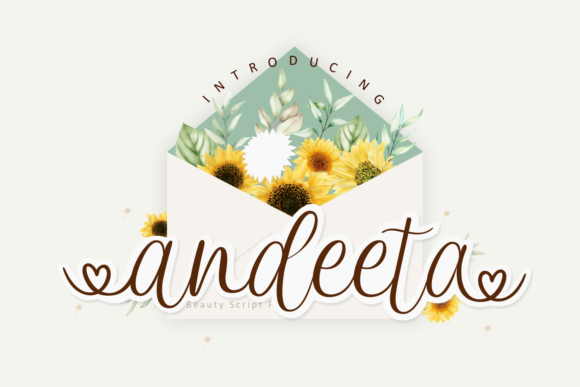
Dive into the world of modern calligraphy with Andeeta Font, the epitome of sophistication and elegance. This captivating script font, meticulously crafted by tlatoustype, exudes a timeless charm that will elevate your designs to new heights. Its graceful curves and flowing lines add an irresistible touch of femininity to any project, making it the perfect choice for creating stunning logos, wedding invitations, social media graphics, and more.
With its rich array of stylish alternates and ligatures, Andeeta Font provides endless possibilities for creative expression. Mix and match characters to create unique and eye-catching combinations that reflect your personal style. Experiment with different letter combinations to unveil hidden flourishes and embellishments that add depth and dimension to your designs. Whether you're a seasoned designer or just starting your creative journey, Andeeta Font is the perfect tool to unleash your imagination and create designs that leave a lasting impression.
Step into the world of elegance and sophistication with Andeeta Font. Let your creativity soar as you explore the endless possibilities of this enchanting script font. Transform your designs into works of art, captivating your audience with its timeless beauty. Embrace the power of Andeeta Font and embark on a creative journey that will redefine your design aesthetic.